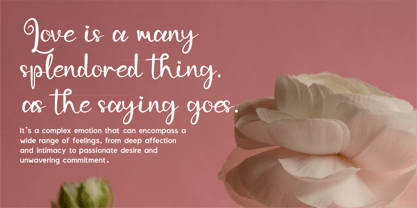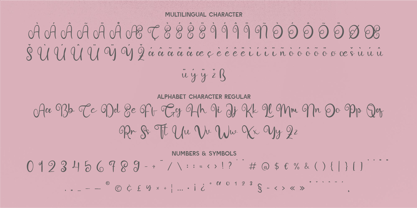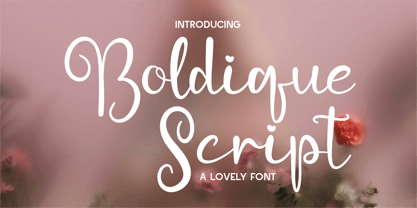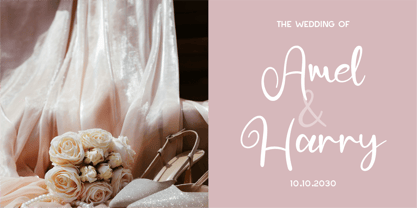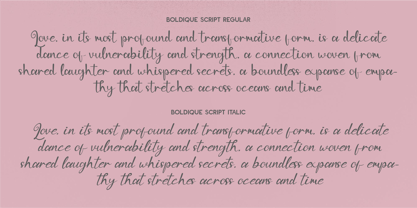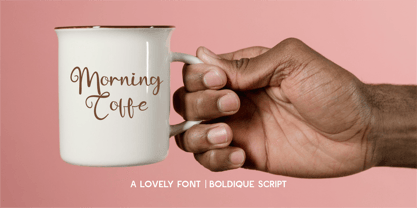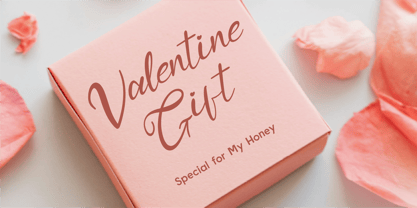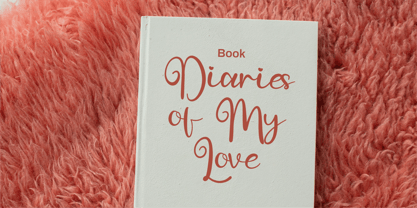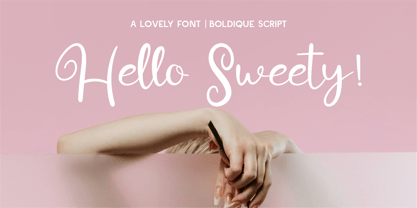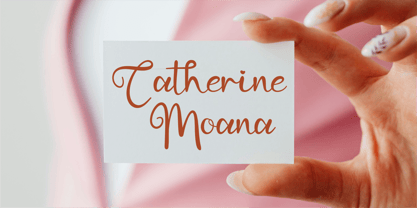
CF Boldique Script
by Indotype
The CF Boldique Script Font Family was designed by Gilang Mei Nugraha, Frederik Aristaputra and published by Indotype. CF Boldique Script contains 2 styles and family package options. More about this family
Boldique Script – A Lovely and Playful Script Font
Elevate your designs with Boldique Script, a charming and expressive script font that radiates elegance and warmth. With its fluid, handcrafted strokes and delightful heart-shaped details, this font brings a touch of romance and personality to any project.
Designed to be versatile and visually captivating, Boldique Script seamlessly blends a modern calligraphic style with a casual yet refined aesthetic. The smooth curves, varying stroke thickness, and well-balanced letterforms make it perfect for branding, wedding stationery, social media graphics, product packaging, and more.
Why Choose Boldique Script?
✔ Elegant & Playful: A perfect blend of sophistication and charm with subtle decorative accents.
✔ Natural Flow: Handwritten-style strokes create an organic and inviting feel.
✔ Versatile Usage: Ideal for logos, invitations, quotes, greeting cards, and boutique branding.
✔ Easy to Use: Designed for seamless legibility while maintaining a stylish, artistic look.
- Standard Character A-Z, a-z, 0-9, Punctuation & symbols
- Regular and Italic
Designers: Gilang Mei Nugraha, Frederik Aristaputra
Foundry: Indotype